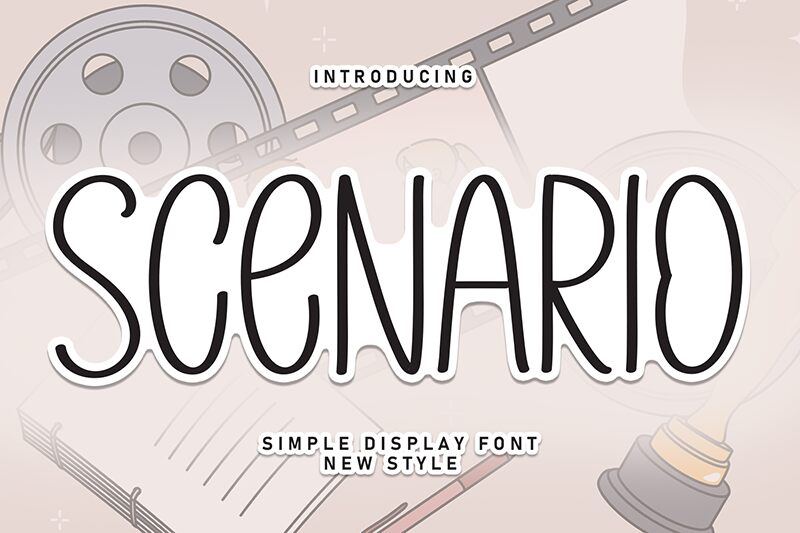
Scenario font is a free script font by Andi Moz that exhibits decorative letterforms in a unique manner. The font family consists of just one single style featuring informal and modern characters that guarantee a casual and welcoming appearance. The font additionally manages to be impactful, stylish, and energetic, all at the same time which makes it perfect for special purposes. The font is majorly aimed at a youthful rather than a professional audience.
Scenario font will be a favorite for designers working on apparel branding projects, book covers, packaging, postcards, logos, and packaging. Its use extends to other sections like social media branding as well, online ads, and typography projects. The font is equally powerful enough to be used in both print and digital platforms.
This is a sweet and friendly handwritten display font. Cute and fun, this font is ideal for writing wedding invitations, cards, or any other design that needs a playful touch.